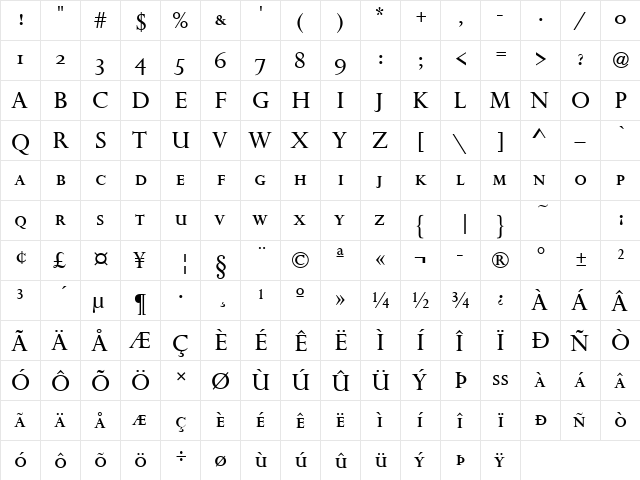
URWPerseusSCT Regular
Design Context for URWPerseusSCT Typeface
URWPerseusSCT takes a measured approach to typography — its balanced proportions and neutral character make it a reliable workhorse for both digital and print work.